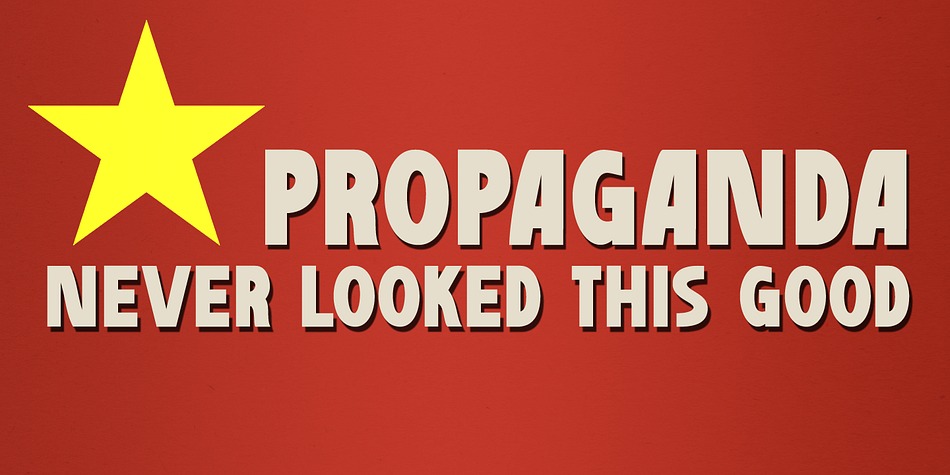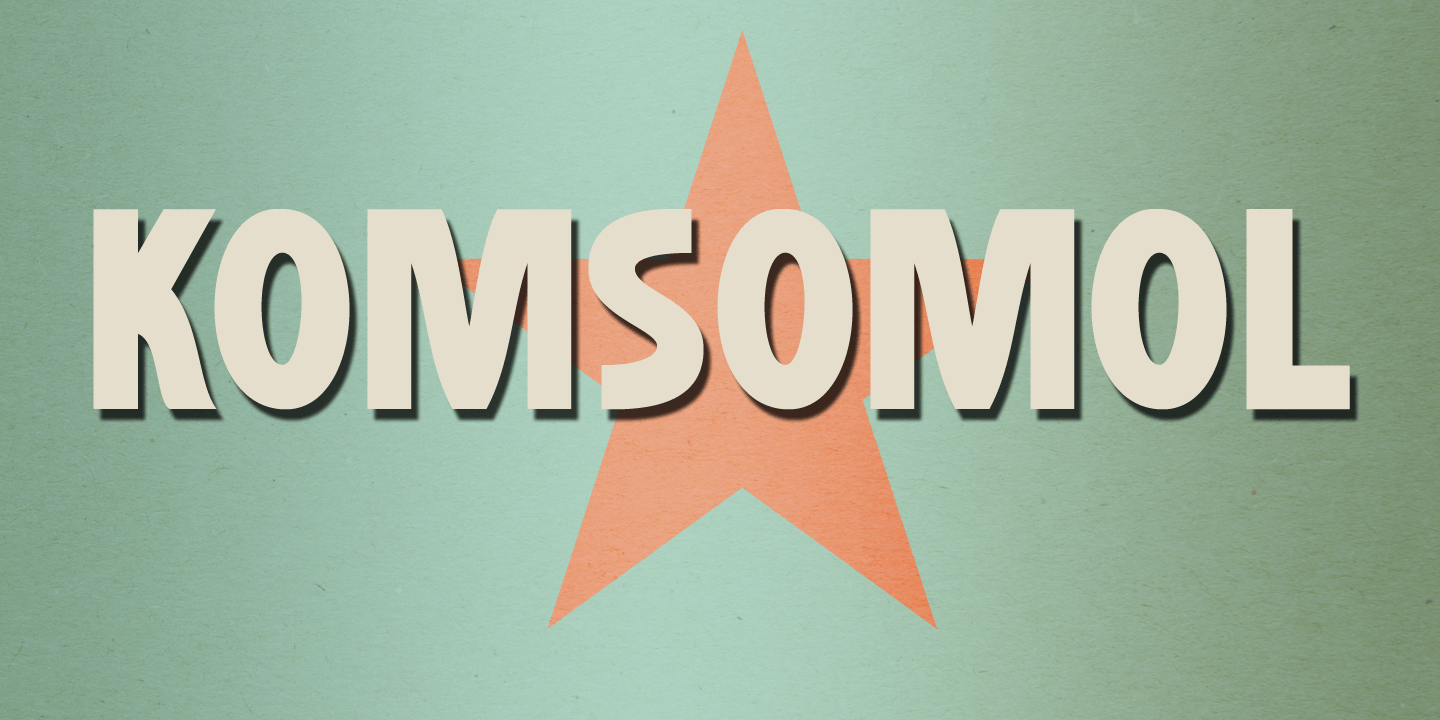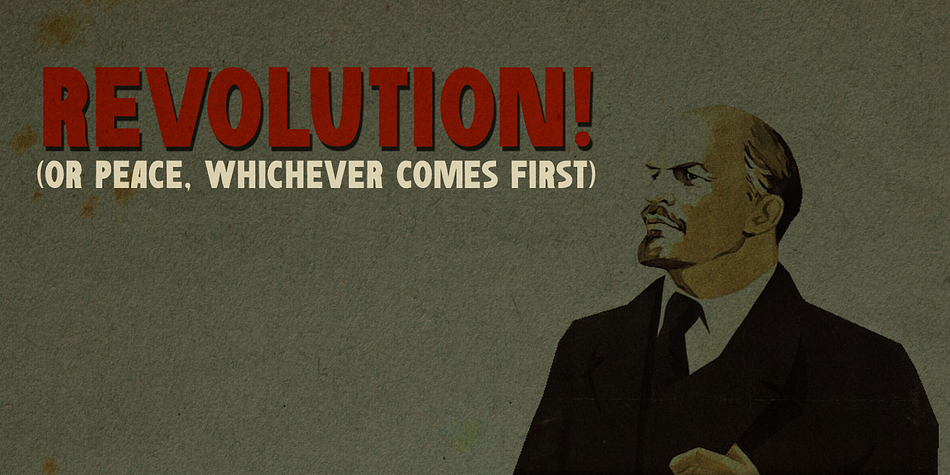
Komsomol is a display sans font published by Hanoded.
Komsomol (short for Kommunisticheskii Soyuz Molodyozhi) was the youth division of the Communist Party of the Soviet Union. Komsomol font was modeled on several Soviet propaganda posters which all had one thing in common: a very loud message in a very clear typeface. Komsomol is an all caps typeface which comes with extensive language support in order to educate the masses.